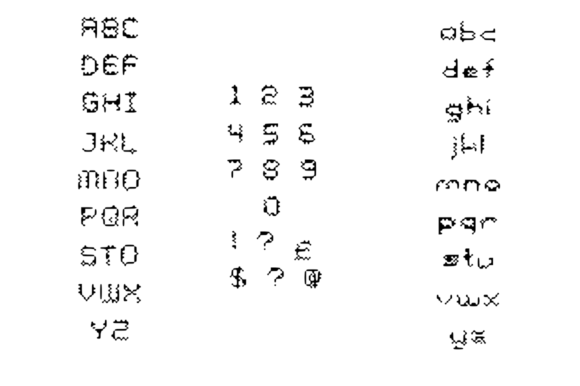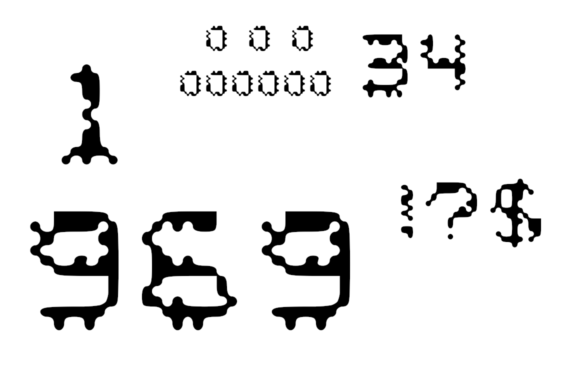
Introduction to Digital Clock Glitch Font
Do you remember that moment when you were working on a project late at night, and your computer screen started acting up? The pixels distorted, and the clock display glitched out, creating a mesmerizing, futuristic effect. That’s the kind of inspiration that led to the creation of the Digital Clock Glitch Font.
This font is a designer’s dream come true, offering a unique, high-quality design resource that can add a touch of retro-futurism to any creative project. With its transparent background and glitched screen aesthetic, it’s perfect for web designers, graphic artists, and anyone who wants to add a bit of digital magic to their work.
Whether you’re working on a project and need a free download to spice things up or just want to experiment with a new design element, the Digital Clock Glitch Font is an invaluable resource that’s sure to elevate your creative output.
Key Features of Digital Clock Glitch Font
- Unique, glitch-inspired design perfect for creative projects requiring a futuristic aesthetic.
- High-quality font with transparent background, ideal for use in digital art, graphic design, and other design resources.
- Supports a wide range of languages, making it a versatile design resource for global creative projects.
- Resolution-independent, ensuring crisp and clear display at various sizes and resolutions.
- Perfect for use in digital art, graphic design, UI/UX design, and other creative fields where a futuristic aesthetic is desired.
Honest Review: Digital Clock Glitch Font
I recently came across the Digital Clock Glitch Font and was excited to give it a try. As a designer, I’m always on the lookout for unique and high-quality design resources to elevate my creative projects.
Here are some things that I think work well with this font:
- ✨ High-quality design that effectively captures the glitch aesthetic
However, there are a few limitations that I’d like to note:
- ⚠️ Limited character set, which may make it difficult to use for longer text-based projects
- ⚠️ Not ideal for projects where a high level of customization is required
Overall, I think the Digital Clock Glitch Font is a great addition to any designer’s toolkit. While it may have some limitations, its unique aesthetic and high quality make it a valuable resource for creative projects. I’d definitely recommend giving it a try, especially for designers who are looking for a free and easy-to-use design resource.
To get the most out of the Digital Clock Glitch Font, use it in designs that require a futuristic or tech-inspired look. This font is perfect for:
- Creating futuristic logos or branding materials
- Designing sci-fi themed posters or flyers
- Adding a touch of modernity to your website or app